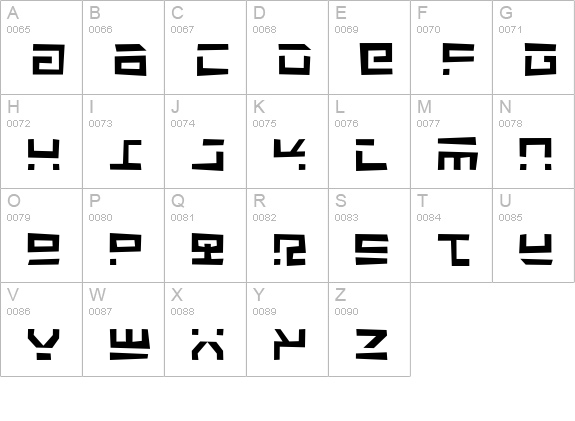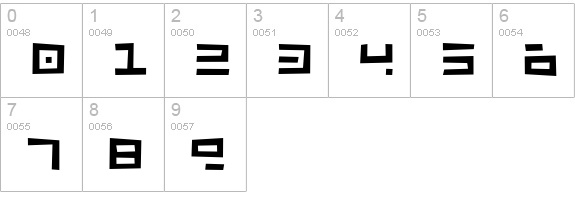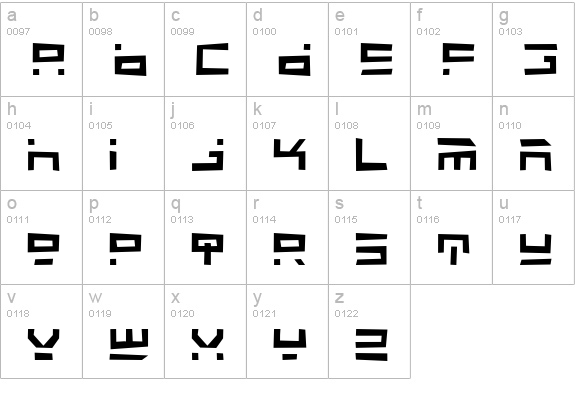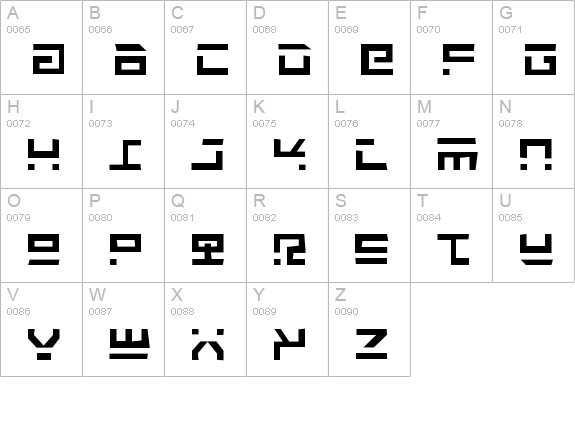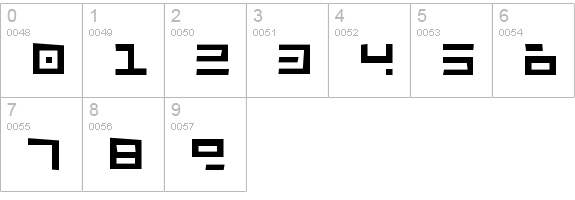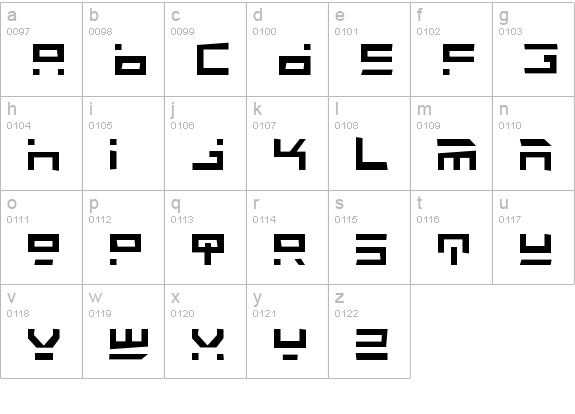
Rocket Junk font is a bold and sleek typeface that exudes a sense of modernity and innovation. With its clean lines and edgy design, this font is perfect for making a statement in your creative projects. Whether you're designing a poster, logo, or website, Rocket Junk font will add a touch of sophistication and style. What's even better is that Rocket Junk font is available for free download at FontsMarket.com. You can easily access this unique font and use it in your personal or commercial projects without any cost. Don't miss out on the opportunity to elevate your designs with Rocket Junk font's distinctive look and feel. Download it today and let your creativity take off!